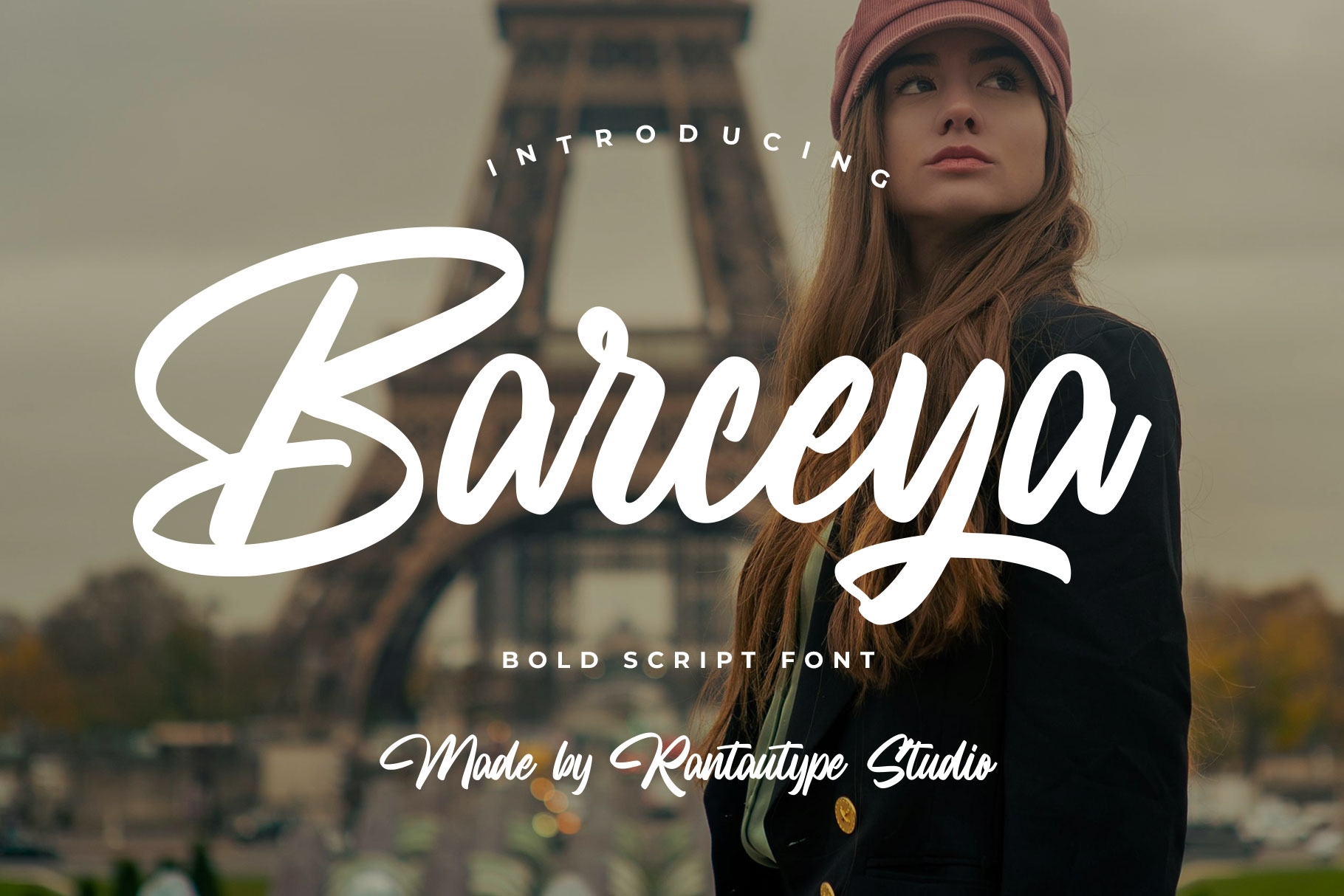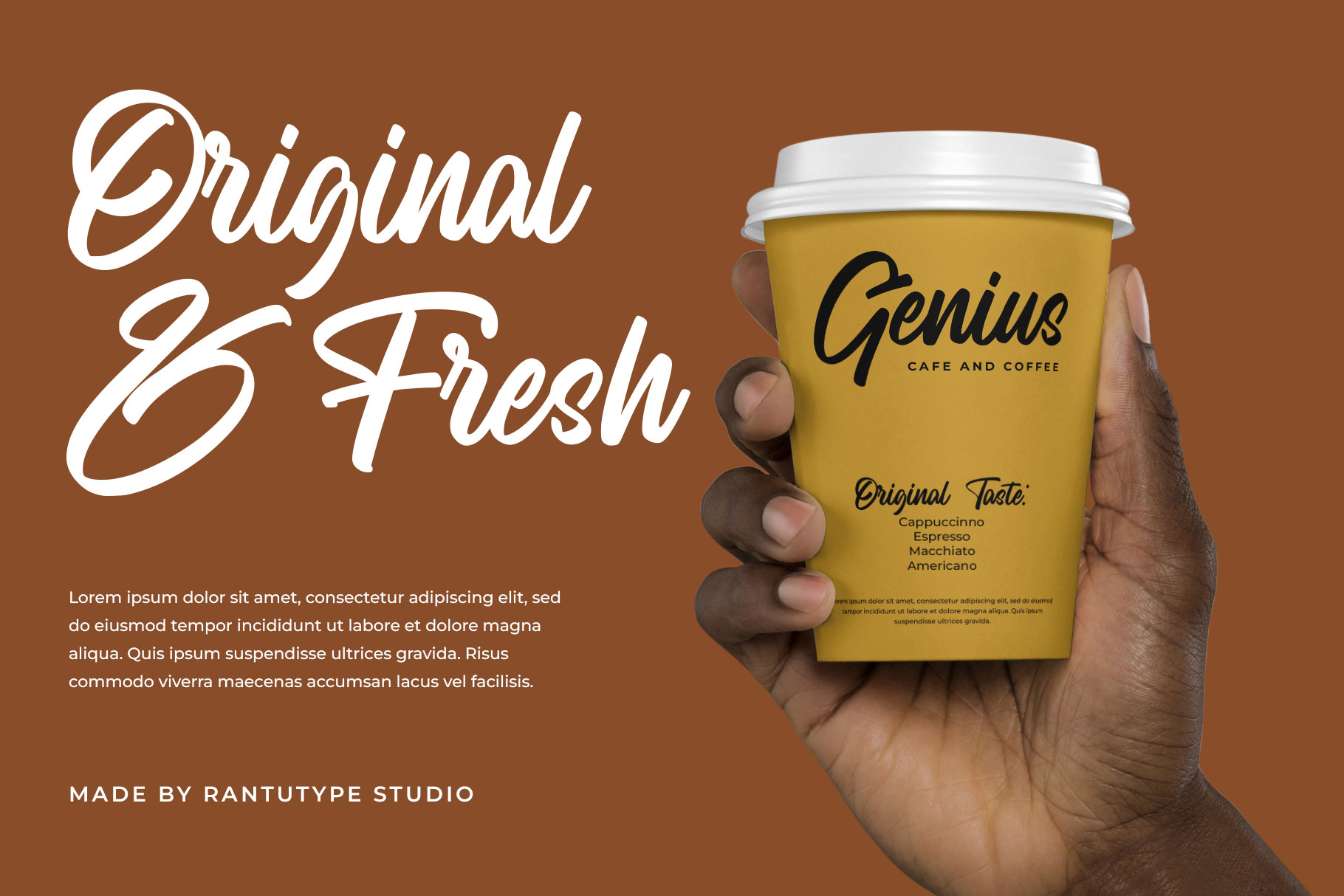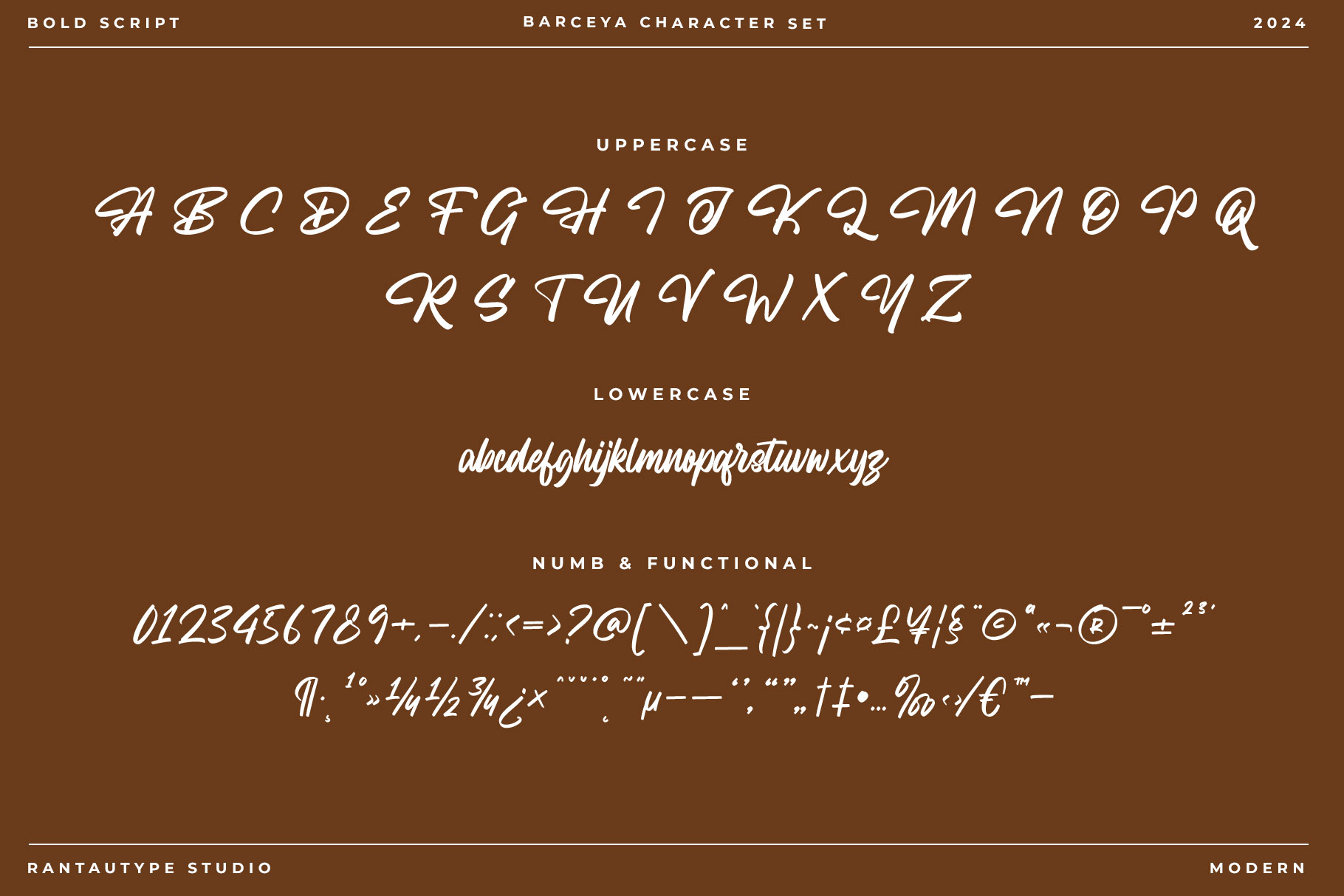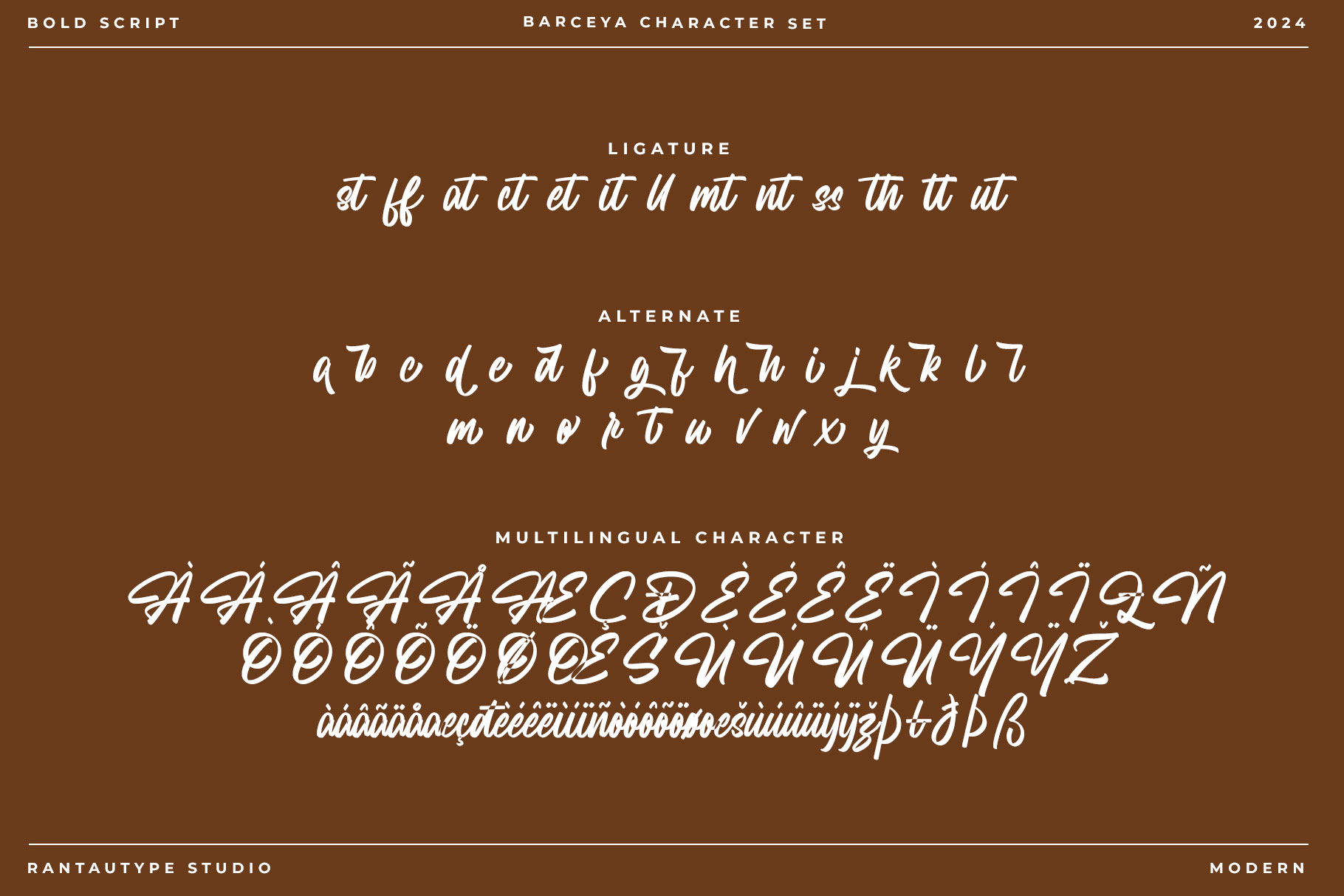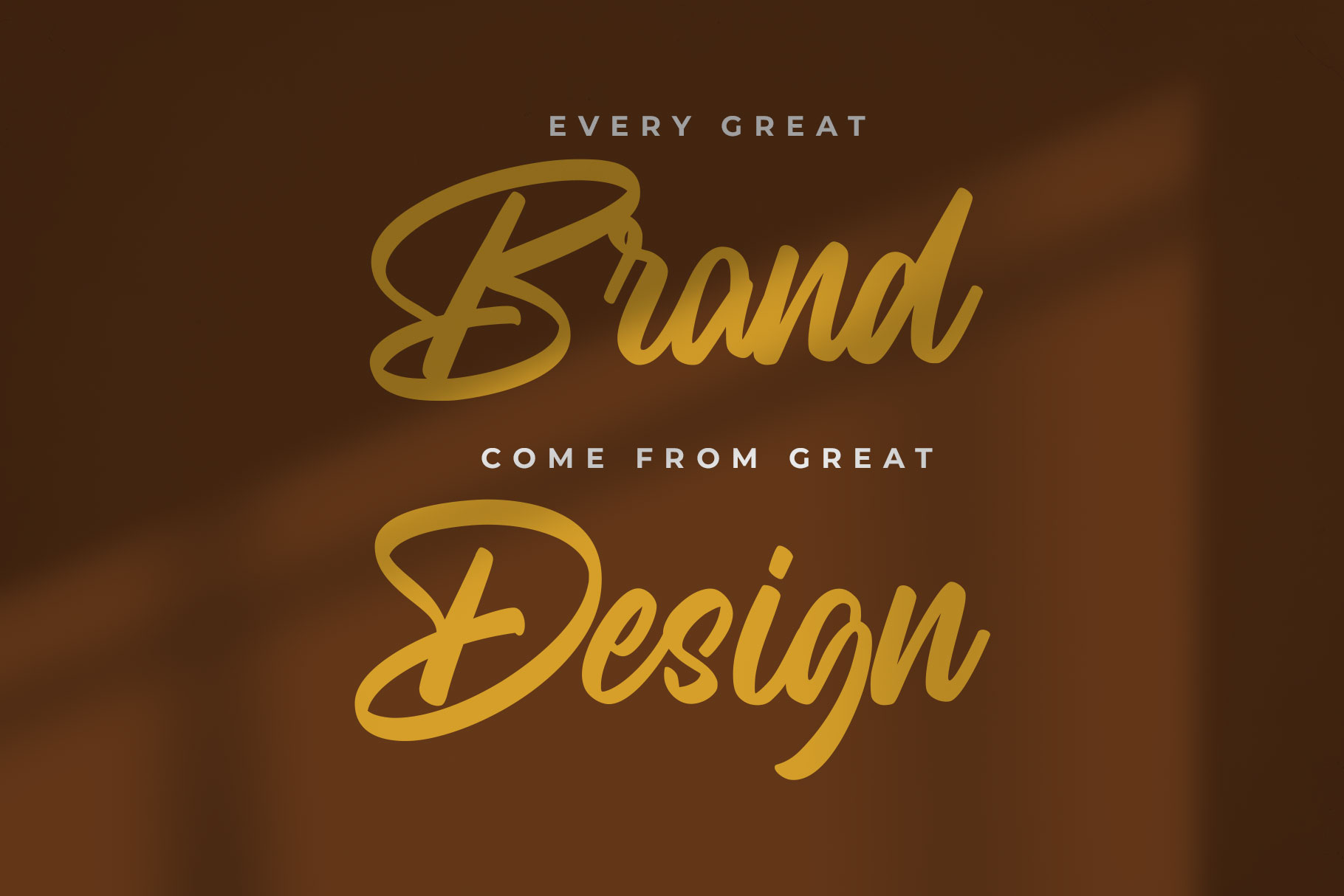
Barceya Bold Script Font
Barceya is bold script font with modern casual style. Barceya come with personal hand-lettering touch with aesthetic shape to create you design project stand out!
Barceya is a perfect choice for any creative endeavor, lifestyle design such as logos, title, watermark on photography, cover, branding, display and magazine, wedding event, corporate brand, quotes, album cover, business card, business project, company branding and more project with handwritten taste.